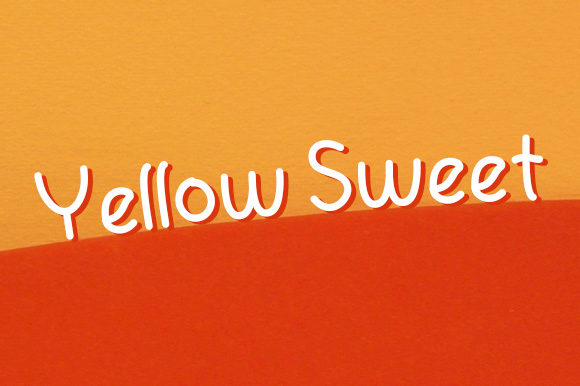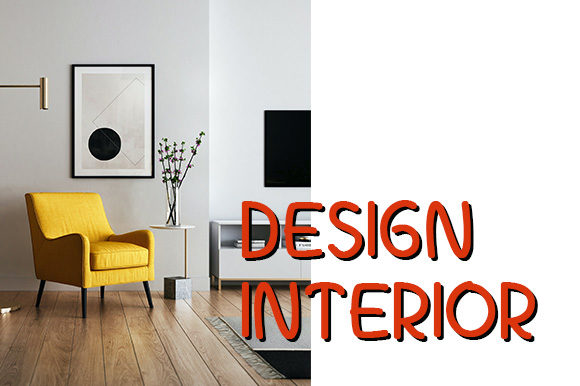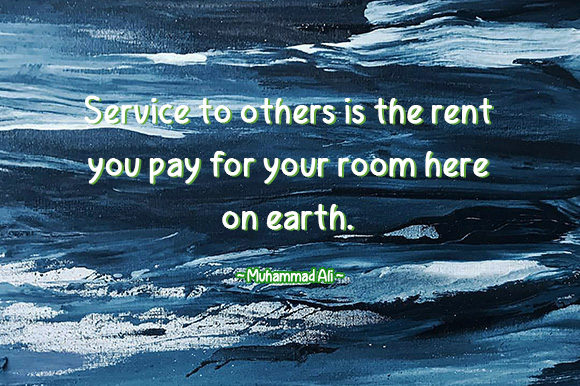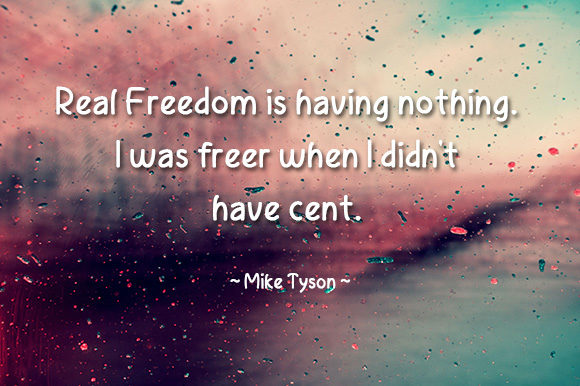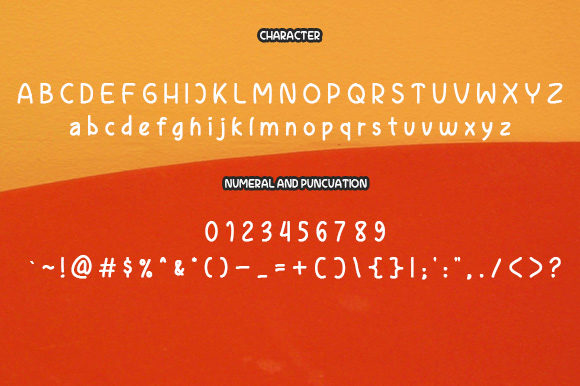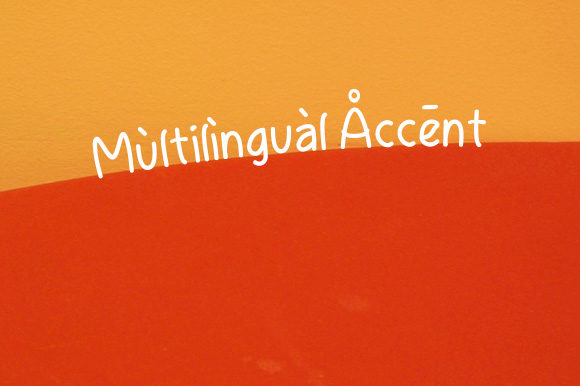
Discover the Charm of Black Palm Font: A Simple, Cute, and Childish Handwritten Font
Are you a designer or crafter looking for a font that can add a touch of whimsy and playfulness to your projects? Look no further than the Black Palm Font, a simple, cute, and childish handwritten font that’s perfect for a wide range of crafty ideas. In this article, we’ll take a closer look at the Black Palm Font, its features, and how you can use it to elevate your designs.
What is Black Palm Font?
Black Palm Font is a handwritten font that’s designed to be simple, yet charming. Its original look is sure to appeal to anyone who loves a touch of whimsy in their designs. The font is characterized by its rounded edges, smooth lines, and childish feel, making it perfect for projects that require a playful and carefree vibe.
Features of Black Palm Font
So, what makes Black Palm Font so special? Here are some of its key features:
- Simple and easy to read: Despite its childish feel, Black Palm Font is surprisingly easy to read, making it perfect for use in titles, headings, and body text.
- Cute and playful: The font’s rounded edges and smooth lines give it a cute and playful feel that’s sure to appeal to designers and crafters who love a touch of whimsy in their designs.
- Versatile: Black Palm Font is incredibly versatile, and can be used in a wide range of projects, from letterheads and titles to stationery and more.
- Handwritten look: The font’s handwritten look gives it a personal and human touch that’s perfect for designers who want to add a touch of personality to their designs.
Uses for Black Palm Font
So, what can you use Black Palm Font for? The possibilities are endless, but here are some ideas to get you started:
- Letterheads and titles: Use Black Palm Font to add a touch of whimsy to your letterheads and titles.
- Stationery: The font is perfect for use in stationery, such as greeting cards, invitations, and more.
- Crafting projects: Black Palm Font is perfect for use in a wide range of crafting projects, from scrapbooking to DIY signs.
- Digital designs: The font can also be used in digital designs, such as social media graphics, blog posts, and more.
Tips for Using Black Palm Font
Here are some tips for using Black Palm Font in your designs:
- Pair it with other fonts: Black Palm Font looks great when paired with other fonts, such as sans-serif fonts or script fonts.
- Use it in moderation: While Black Palm Font is cute and playful, it can be overwhelming if used too much. Use it in moderation to add a touch of whimsy to your designs.
- Experiment with colors: The font looks great in a wide range of colors, so don’t be afraid to experiment and find the perfect color for your design.
| Font Name | Black Palm Font |
| Author | Justlett |
In conclusion, Black Palm Font is a simple, cute, and childish handwritten font that’s perfect for designers and crafters who love a touch of whimsy in their designs. Its original look and versatile features make it perfect for use in a wide range of projects, from letterheads and titles to stationery and more. Whether you’re a seasoned designer or a crafting newbie, Black Palm Font is sure to become a favorite in your design arsenal.